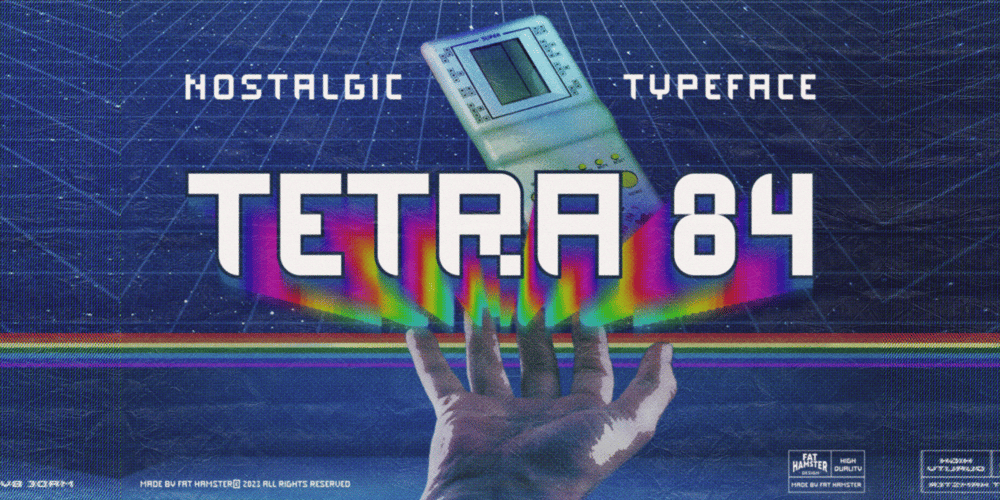
Tetra 84
Tetra 84 font
Tetra 84 Font Family was designed by Alesia Kutsian, Aliaksei Hvozdzeu and published by Fat Hamster. Tetra 84 contains 1 styles and family package options. TETRA 84 is a super cool nostalgic retro font in 80s 90s Y2K styleTETRA 84 is a 80s 90s Y2k Tetris inspired typeface. It’s retro, bold, playful, fun and…Tetris! Have fun using it!